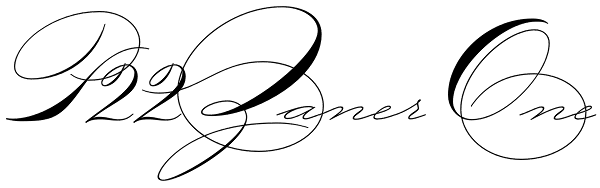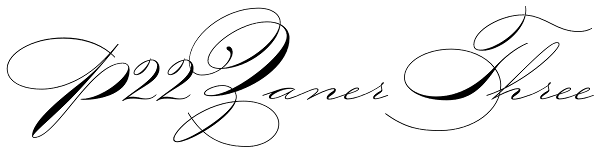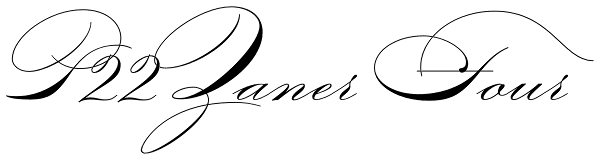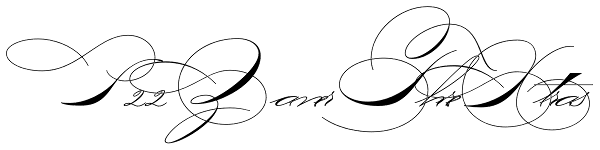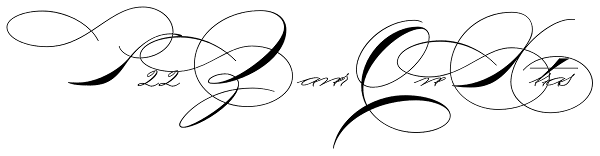
P22 Zaner Basic
P22 Zaner is based on ornamental penmanship as taught by Charles Paxton Zaner at his art college at the turn of the 20th century. The Zaner font set includes four unique fonts that complement the other fonts in the set. Each font is available in...